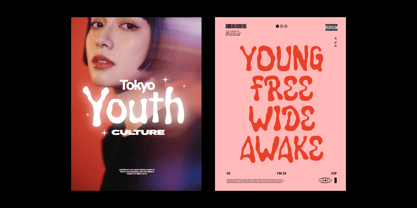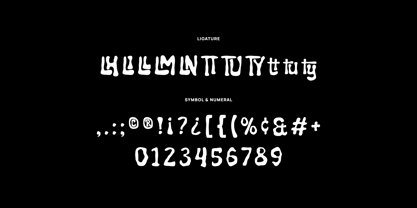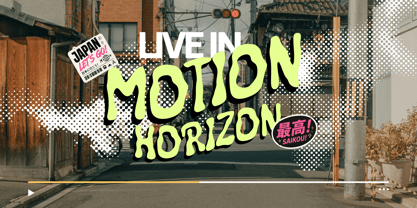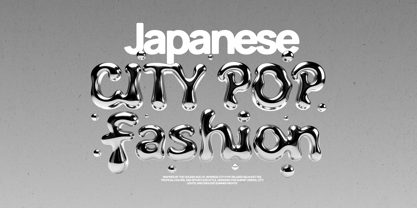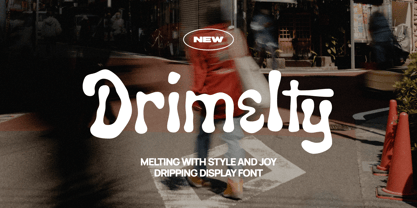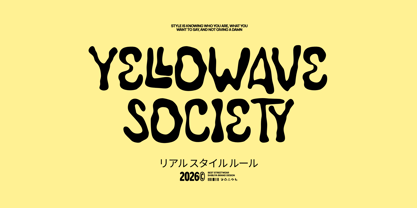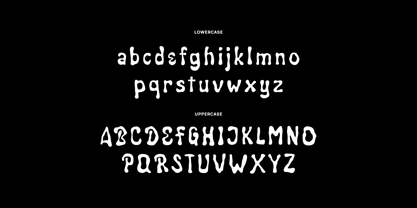
Drimelty
by Imoodev
The Drimelty Font Family was designed by Aulia Savira Putri and published by Imoodev. Drimelty contains 1 styles. More about this family
Drimelty is a melting display typeface built for designers who want their headlines to feel alive. Every letter rounded strokes that swell and taper, with organic drips and gooey terminals that give the whole alphabet a liquid, hand poured quality. The character shapes borrow from psychedelic and groovy 70s lettering.
Drimelty works hardest where personality matters most streetwear graphics, music posters, album covers, zines, skate and surf branding, cafe and dessert logos, social media headlines, packaging, YouTube thumbnails, and any project that needs a retro groovy or Y2K adjacent edge.
Designers: Aulia Savira Putri
Foundry: Imoodev